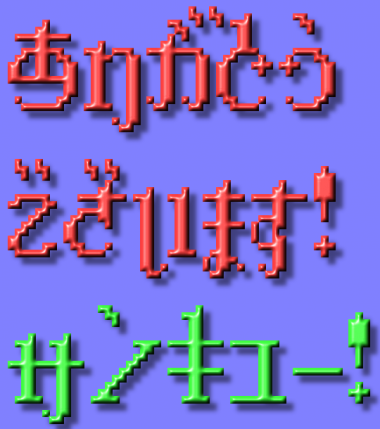
The glyphs show a cleat understanding of the Japanese writing system and lose none of their beauty in the translation which is quite an a judgement in a pixel font. Coolness.
The glyphs show a clear understanding of the Japanese writing system and lose none of their beauty in the translation which is quite an a achievement in a pixel font. Coolness.
Nicely done. :)
Quite a feat!
Congratulations! FontStruct Staff have deemed your FontStruction worthy of special mention. “Yuuroppuna pixel” is now a Top Pick.
I love it!
This is super nice! However, is it just me, or is it missing the w- hiragaina, such as ゐ? It's not that big of a deal, as they are rare, so don't worry about it if it's not a big deal to you :P
I think this is amazing! There should totally be an anti-aliased version.
The な is absolutely breathtaking. It looks like a backwards "t" combined with a "ʓ".
The る and ろ can be typed as "ʓ" and "ʒ" respectively.
の clearly looks like a backwards "e".
り can be written with "ŋ" (eng).
ん can be written with "ƕ" (hwair/hv) or "h".
の can be typed out as "ɘ".
This style should really exist everywhere.